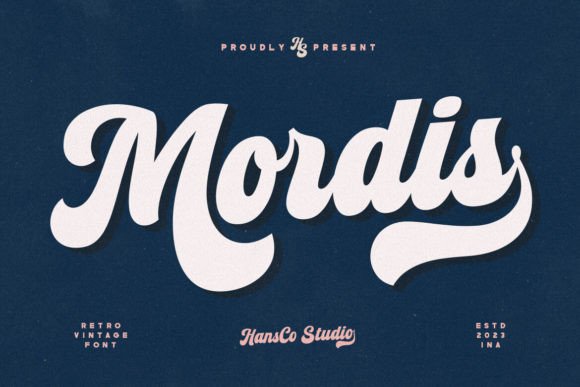
Introducing Mordis Font, the ultimate choice for adding a touch of retro vintage elegance to your designs. Created by the talented team at HansCo, this font is specifically designed to make your titles in Canva stand out from the crowd. Get ready to be captivated by its charm and versatility!
With Mordis Font, you won't just get a regular script font, but a treasure trove of alternate characters and swashes. Each letter is meticulously crafted to bring a sense of nostalgia and sophistication to your projects. Whether you're working on a branding campaign, poster design, or social media graphics, Mordis Font will elevate your creations to new heights.
What sets Mordis Font apart from other fonts is its wide range of complete characters. From elegant uppercase letters to delicate lowercase letters, each character has been carefully crafted to exude an aura of vintage beauty. Numbers and punctuation marks are included, ensuring that you have everything you need to create visually stunning and cohesive designs.
Not only is Mordis Font visually stunning, but it also offers multi-lingual support. No matter which language you're working with, this font has got you covered. Say goodbye to language barriers and embrace the seamless integration of Mordis Font into your global projects.
But why should you choose Mordis Font over other options? Well, let's talk about emotions. Imagine the feeling of nostalgia and wonder that washes over you when you come across a beautifully designed vintage poster. That's the power of Mordis Font. It evokes emotions, tells a story, and transports your audience to a different era.
Moreover, Mordis Font is more than just a font – it's a creative tool that empowers you to express your unique style. Its versatility allows you to experiment with various design elements, creating an endless array of possibilities. Let your imagination run wild as you effortlessly combine Mordis Font with other design elements to create visually stunning masterpieces.
In conclusion, Mordis Font is the perfect choice for anyone looking to elevate their Canva titles. Its retro vintage charm, extensive character set, and multi-lingual support make it a must-have for designers, marketers, and creatives alike. Unlock the power of emotions and creativity with Mordis Font – your designs will never be the same again.